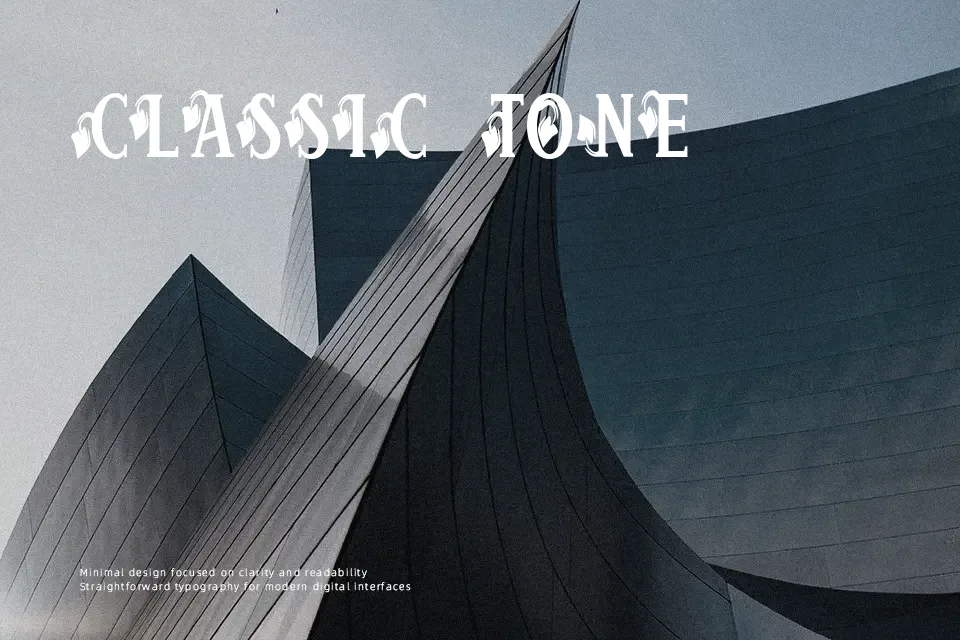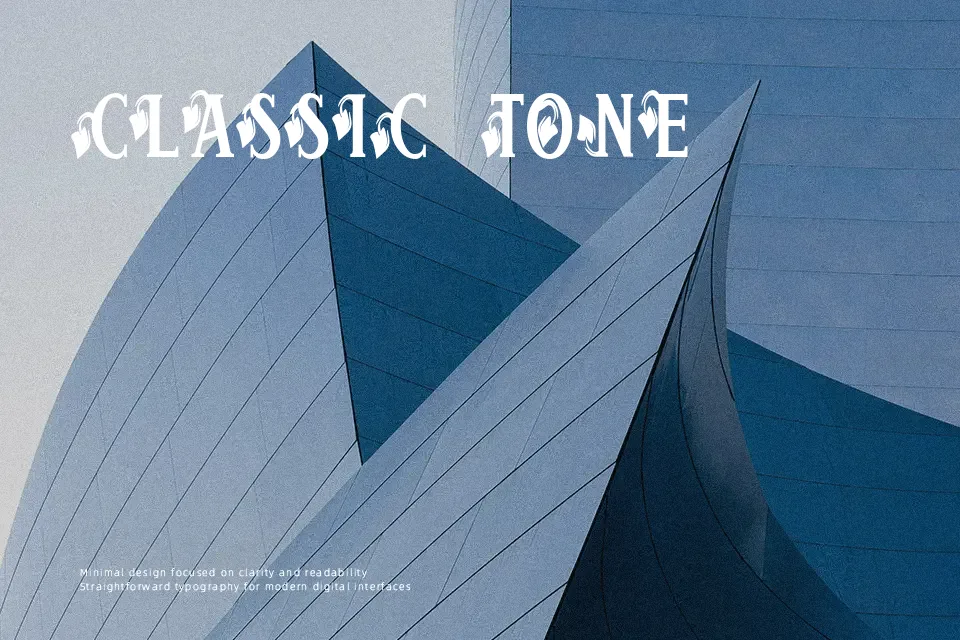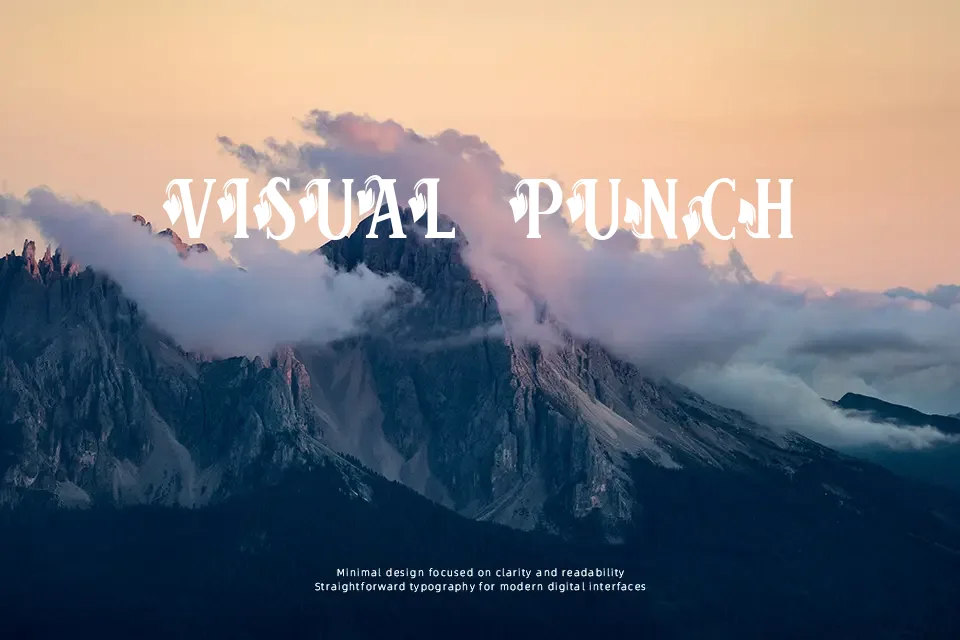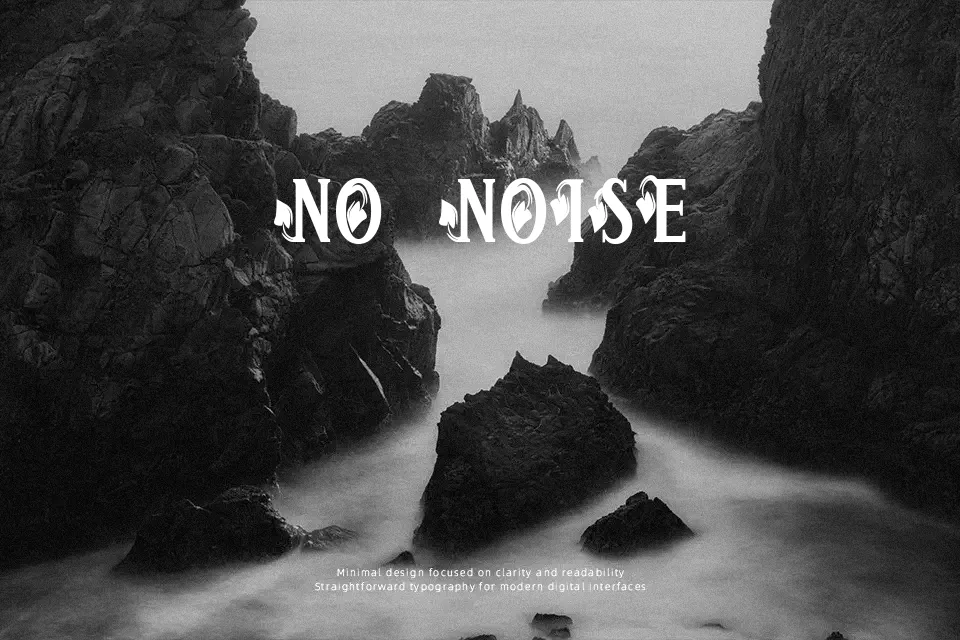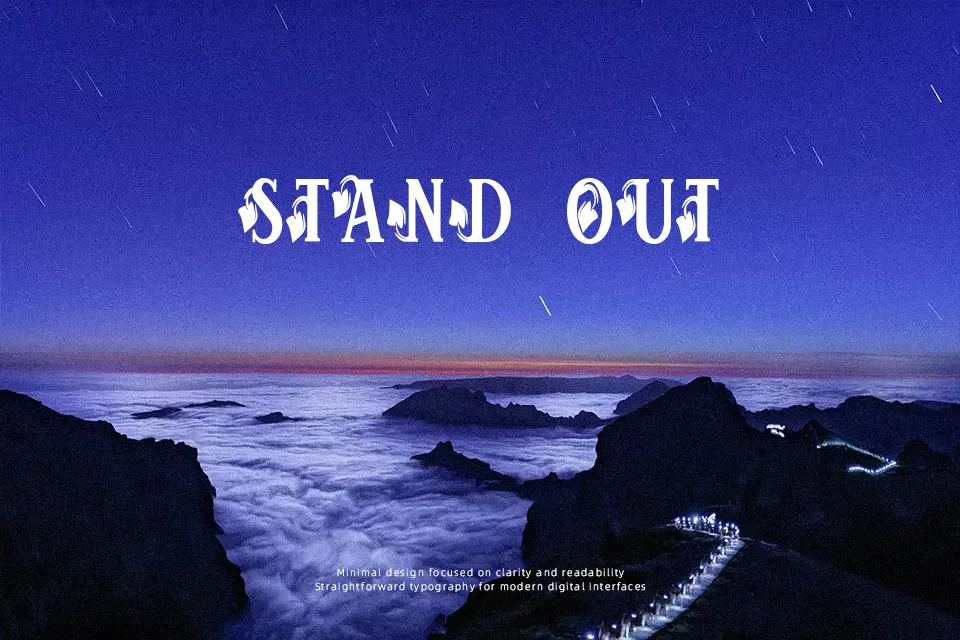
Bloom Font
Designed by Luc Mahler, Bloom Font is a highly decorative alphading typeface that transforms standard letters into intricate, nature-inspired art. Each initial intertwines bold structural lines with blossoming floral motifs, giving it a vintage, fairy-tale impression. The design brings a profound sense of artistic elegance to classical layouts. It performs beautifully for standalone drop caps in editorial projects or ornate monograms in high-end wedding stationery. However, due to its highly complex stroke patterns, it becomes entirely unreadable if used for full sentences or smaller text. Bloom Font is most effective when applied sparingly as an artistic focal point, contrasting beautifully against clean, minimalist body text in creative and romantic applications.
Decorative drop caps in editorial magazines
Vintage-style monograms and insignias
Artistic accents on elegant stationery
Small-scale body text paragraphs
Extended headlines or long sentences
Minimalist corporate tech branding
Perfect for branding, editorial, and invitation, with a artistic and decorative style.